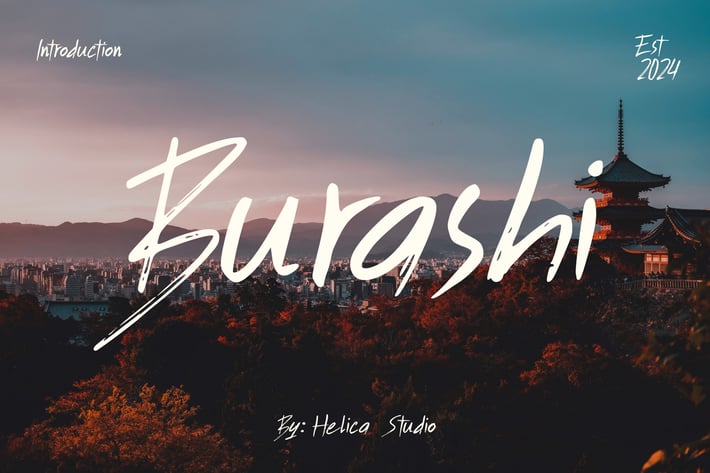
Burashi Paint Brush Font
Burashi Paint Brush Font typeface is perfect for crafting elegant quotes, stunning logos, captivating magazine headers, and so much more.